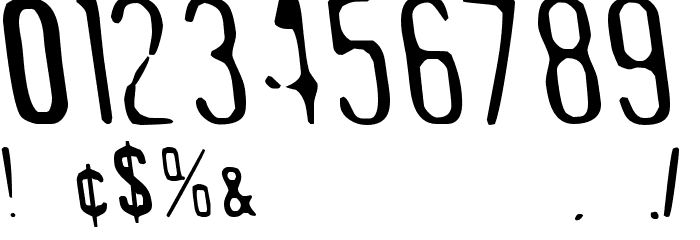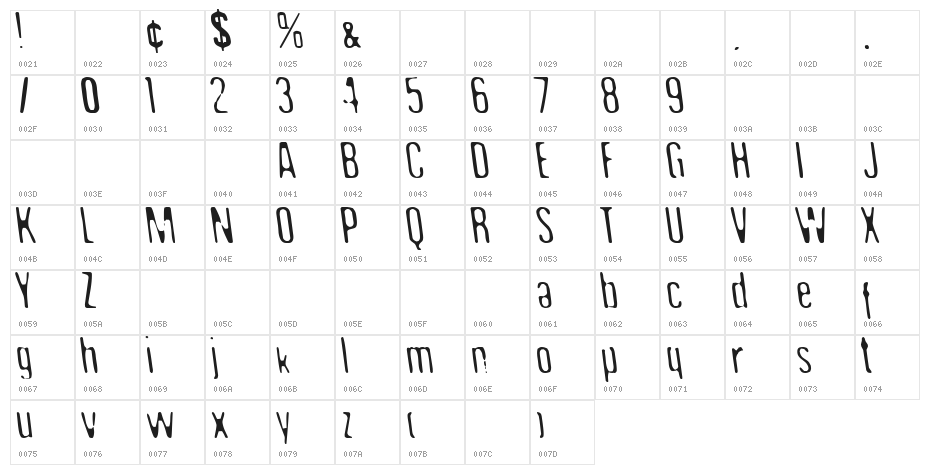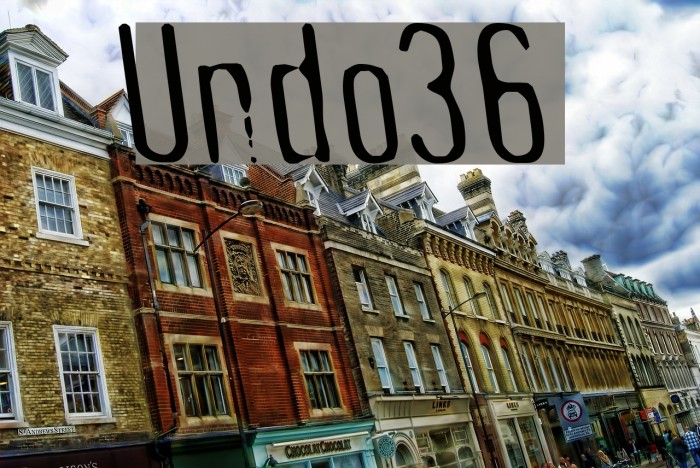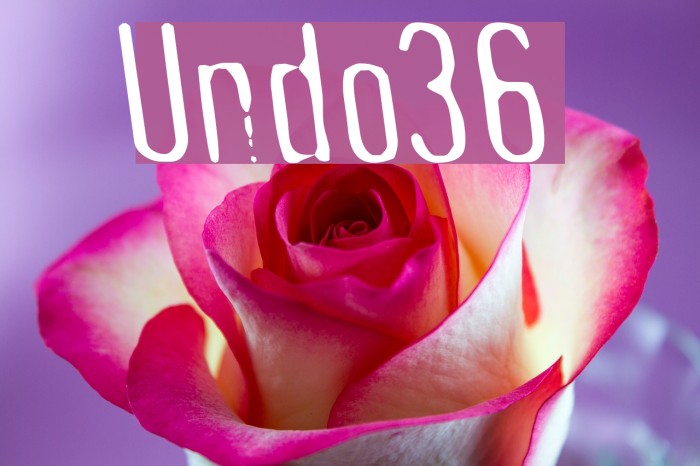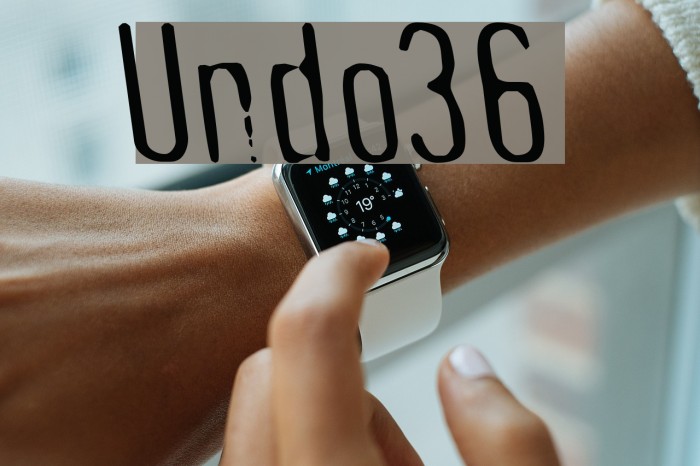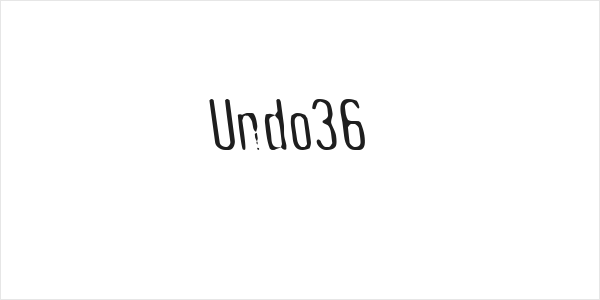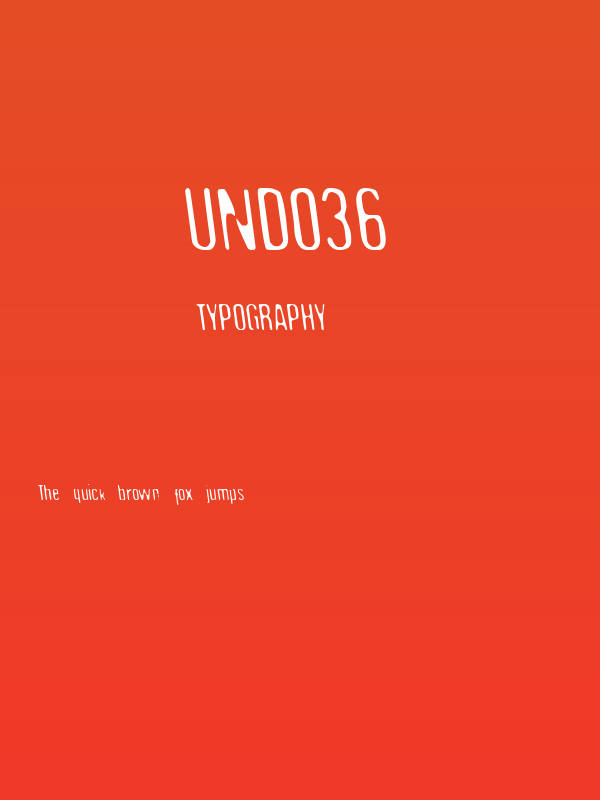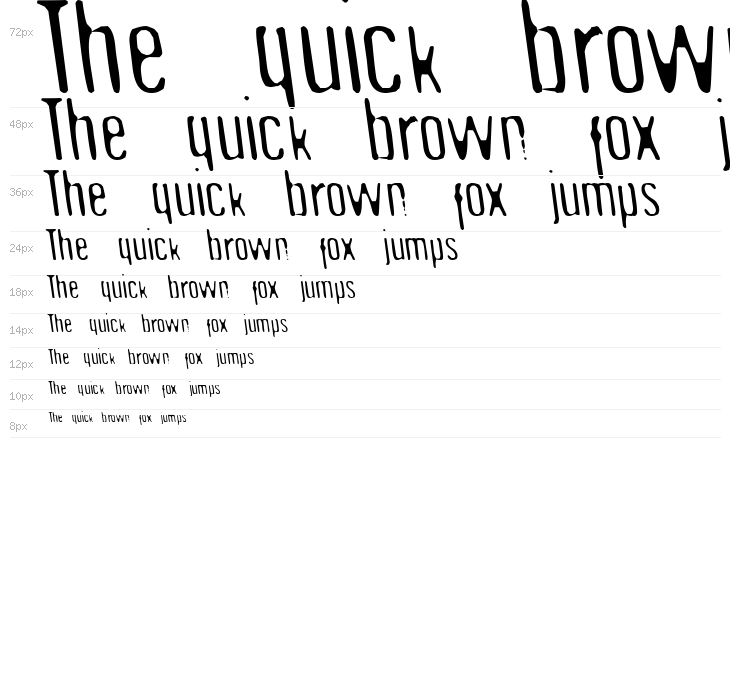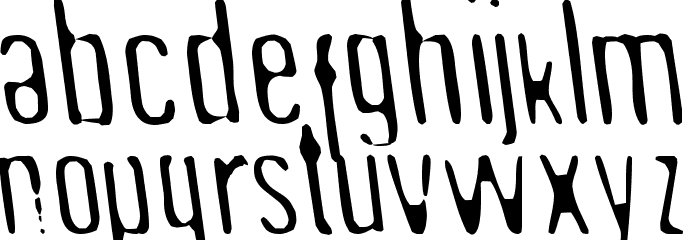
Undo36 Font
Undo36 Description
This font features a unique and artistic design with a playful, distorted appearance. The characters are elongated and have irregular, wavy edges, giving them a dynamic and fluid look. The uppercase and lowercase letters maintain a consistent style, with some characters appearing to lean or twist slightly. The numbers and special characters follow the same whimsical design, adding to the overall quirky and creative feel. This font stands out with its bold and expressive style, making it ideal for projects that require a distinctive and eye-catching typeface.
UNDO36 UPPERCASE
UNDO36 LOWERCASE
UNDO36 OTHER CHARS
| Proposed Projects | Ideal for creative projects such as posters, album covers, and artistic branding. |